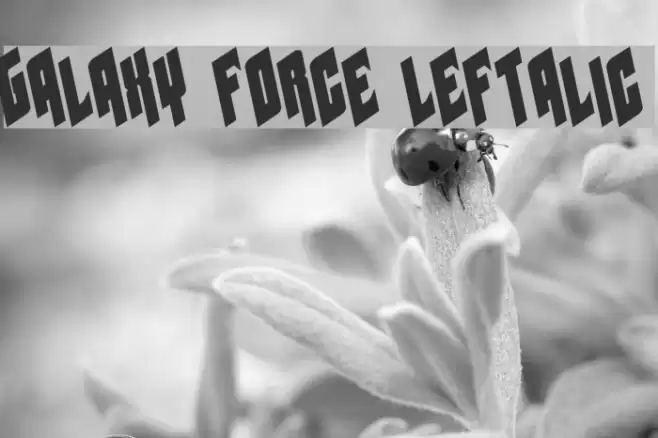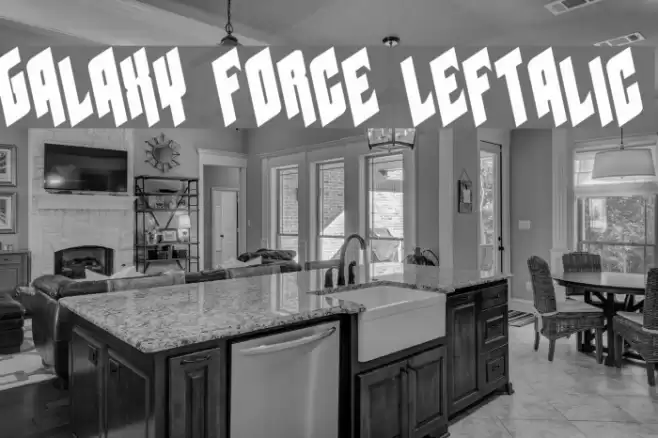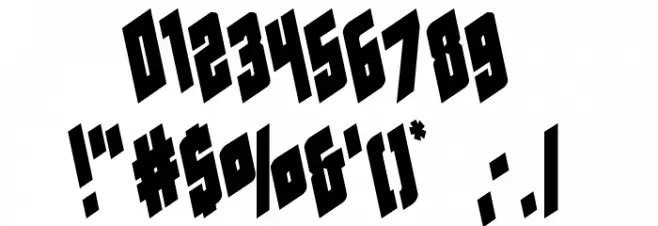
Galaxy Force Leftalic Font
Galaxy Force Leftalic Description
This font features a bold, angular design with a strong geometric influence. The characters are slanted to the left, giving a dynamic and forceful appearance. The uppercase and lowercase letters maintain a consistent style, with sharp edges and a blocky structure. Numbers and special characters follow the same aesthetic, ensuring uniformity across all glyphs. The font's boldness and unique slant make it stand out, ideal for attention-grabbing designs.
A bold, angular font with a leftward slant and geometric style from Uncategorized fonts.
- Proposed Projects: Perfect for sci-fi themed posters, video game titles, and futuristic branding projects.